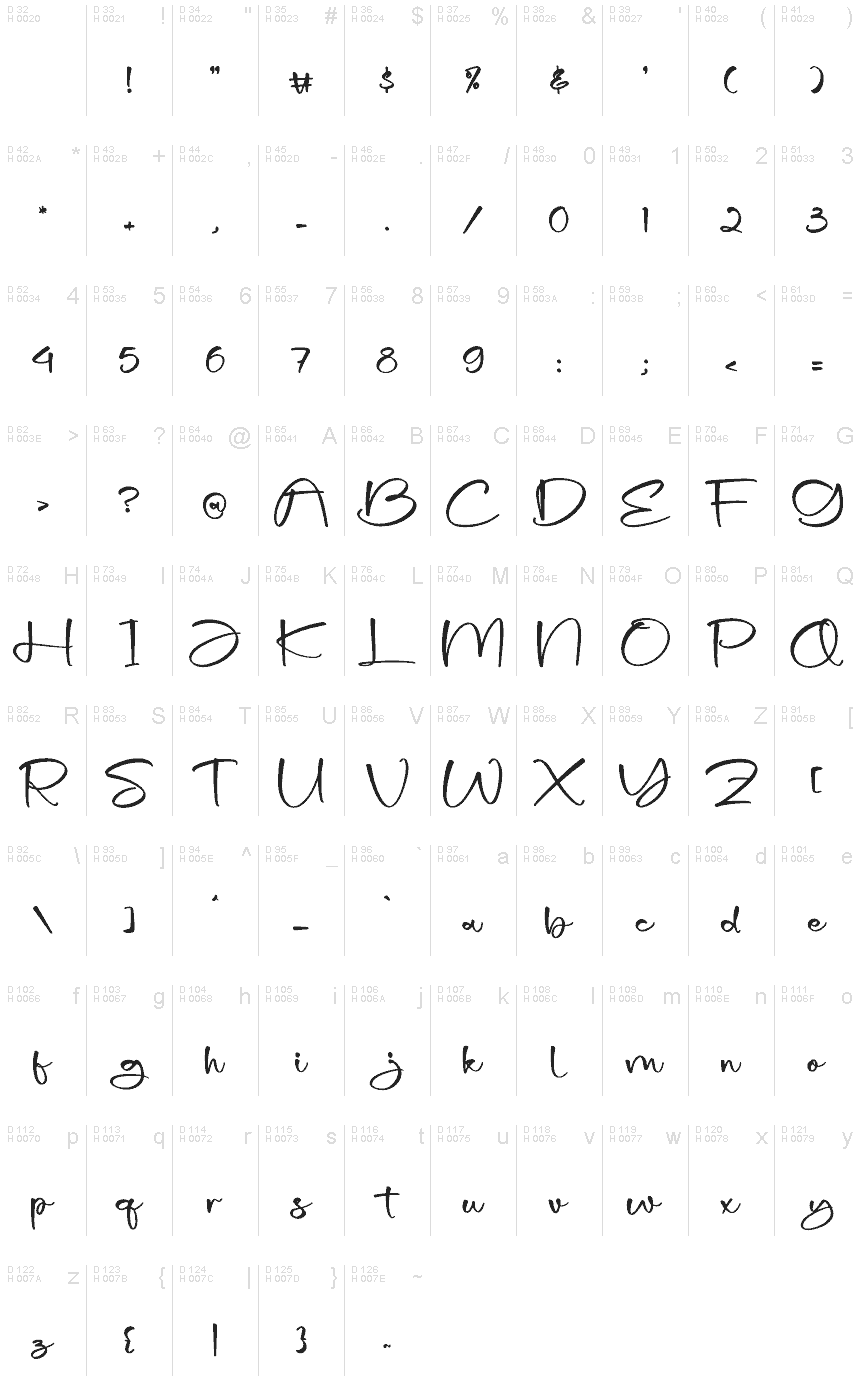
Homyllen
Homyllen font by Letterena Studios is a stylish handwritten font with unique expanded letters that are condensed vertically. Filled with expressive and casual forms, it embodies contemporary vibes with artistic flair. Homyllen offers an unusual letter design that provides unique aesthetics where each character is as important as the other in any created large project.